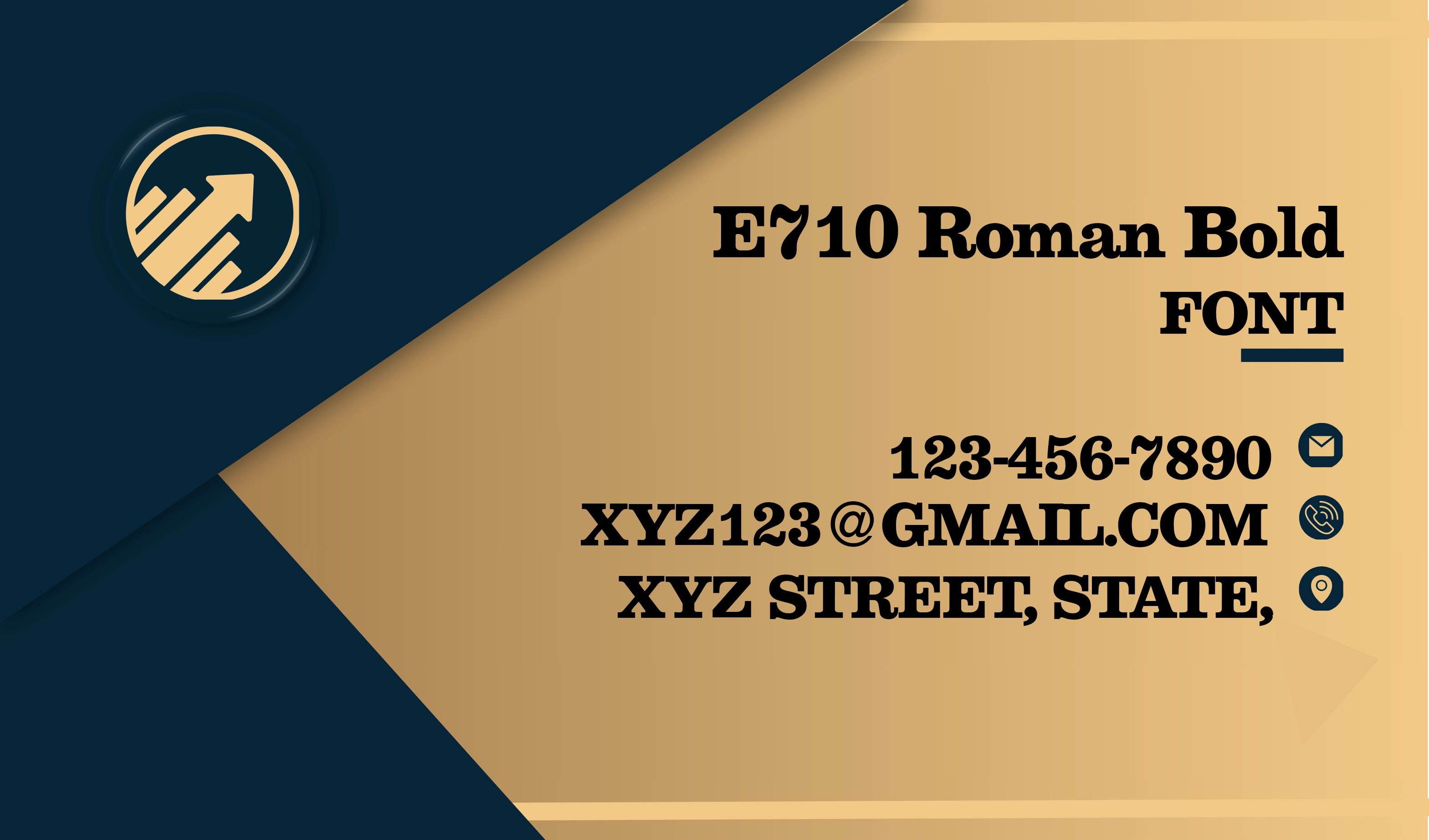
E710 Roman Bold is an ideal font choice for all your playful designs. It falls under the Bold subfamily. This font, created by SoftMaker Software GmbH, is perfect for personal use and free of charge.
E710 Roman Bold